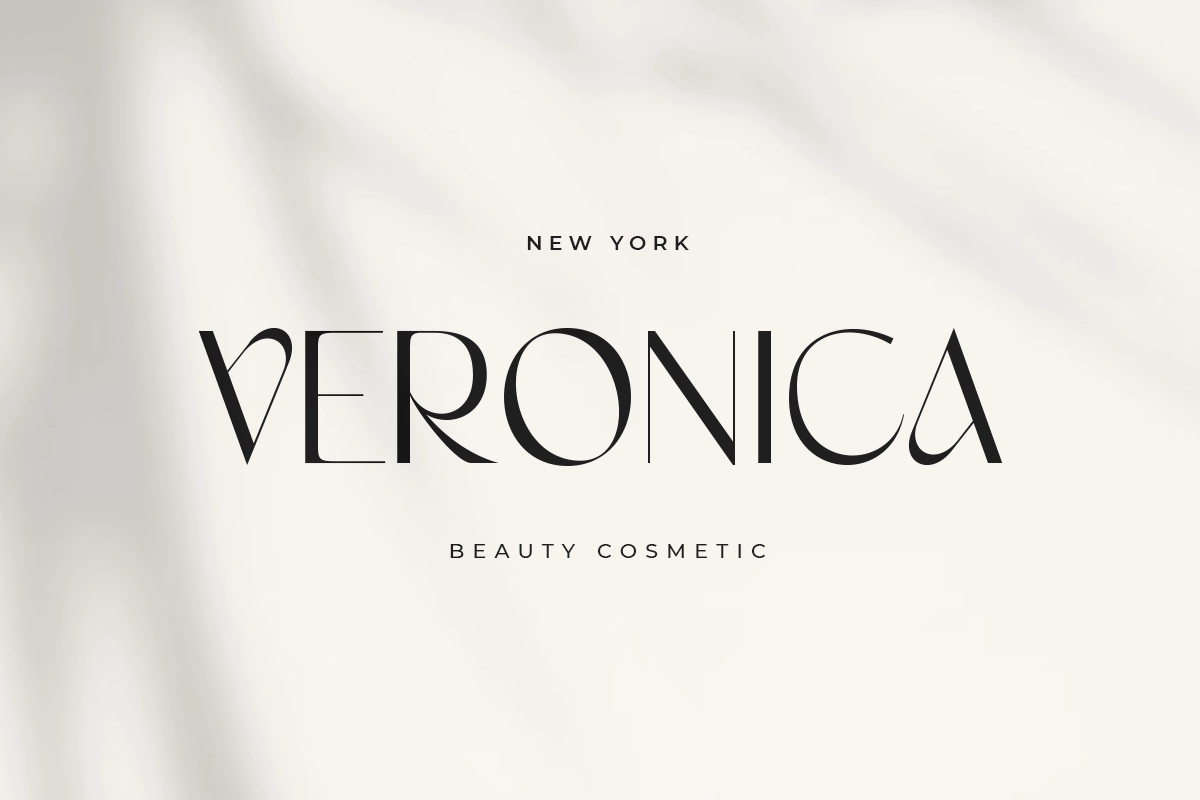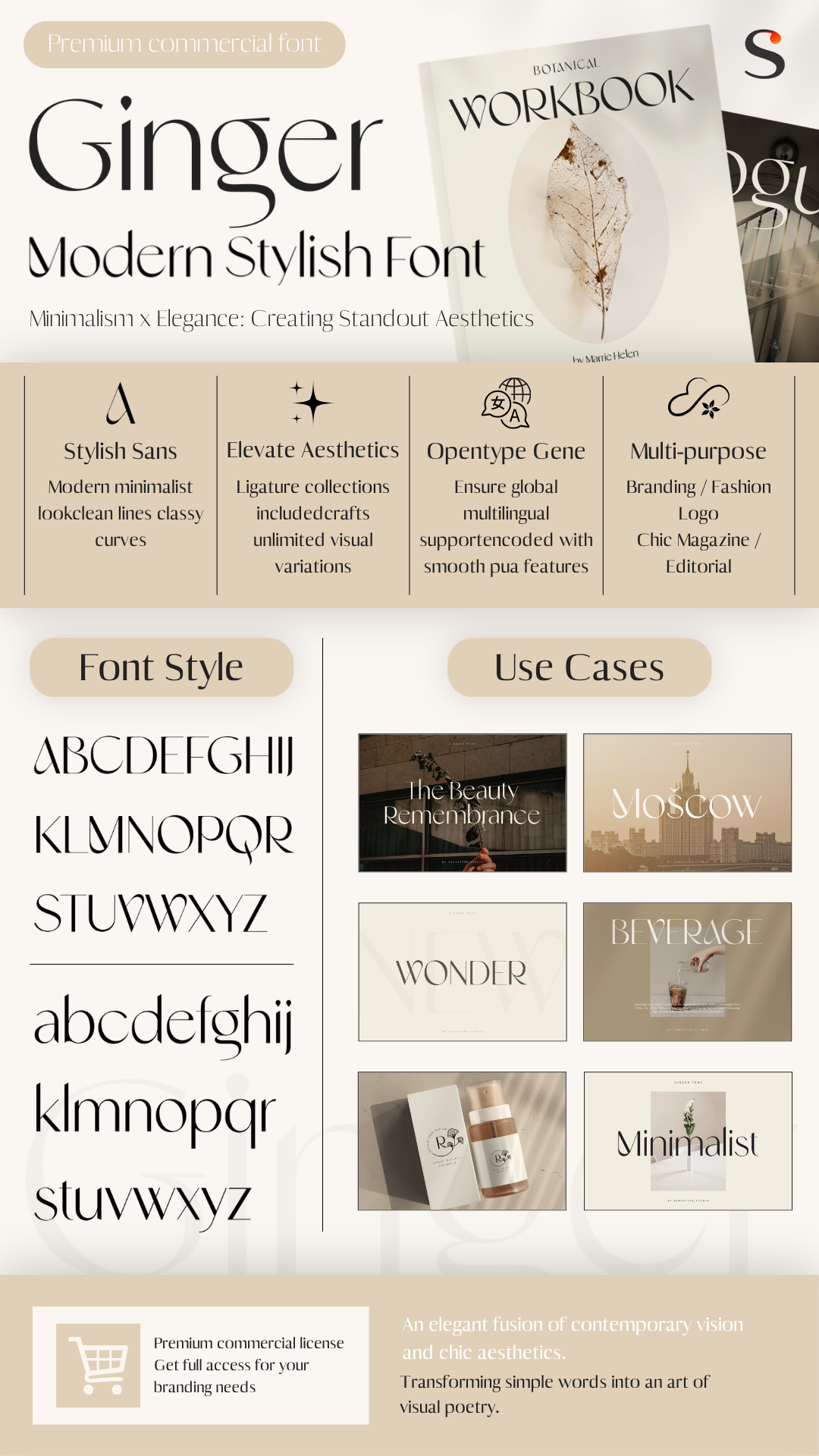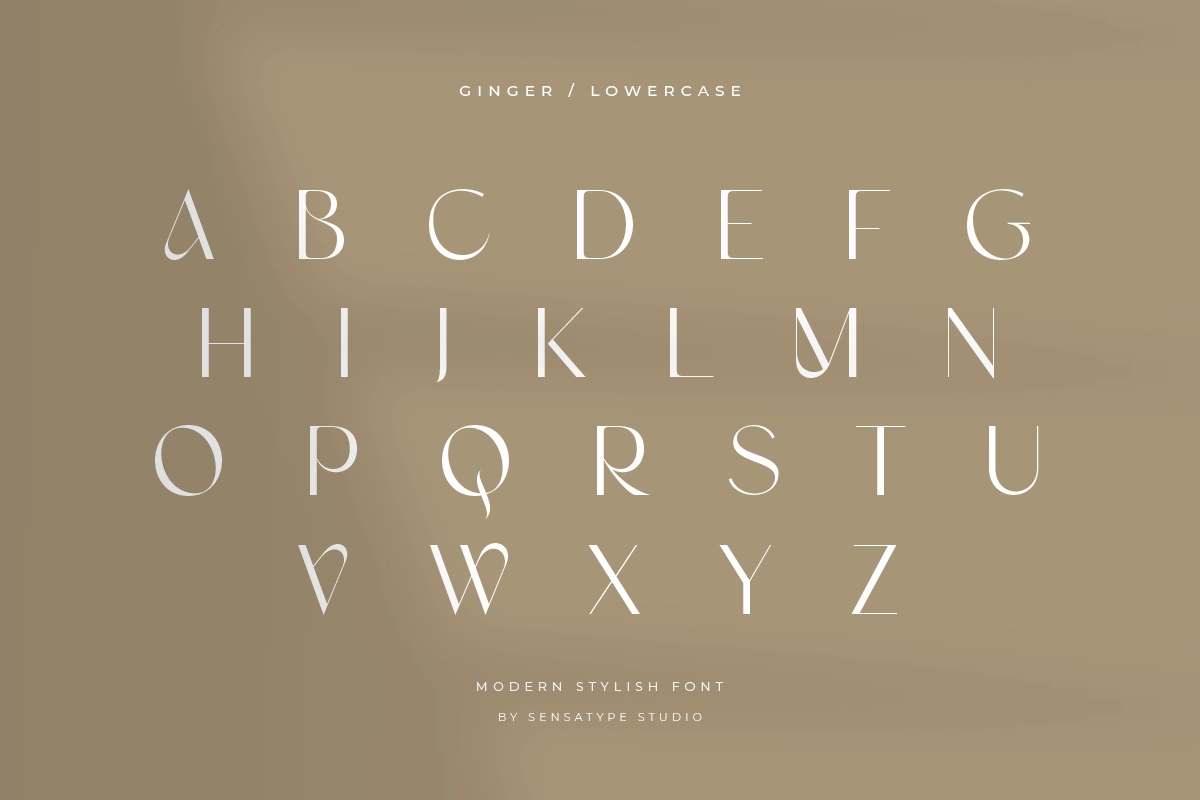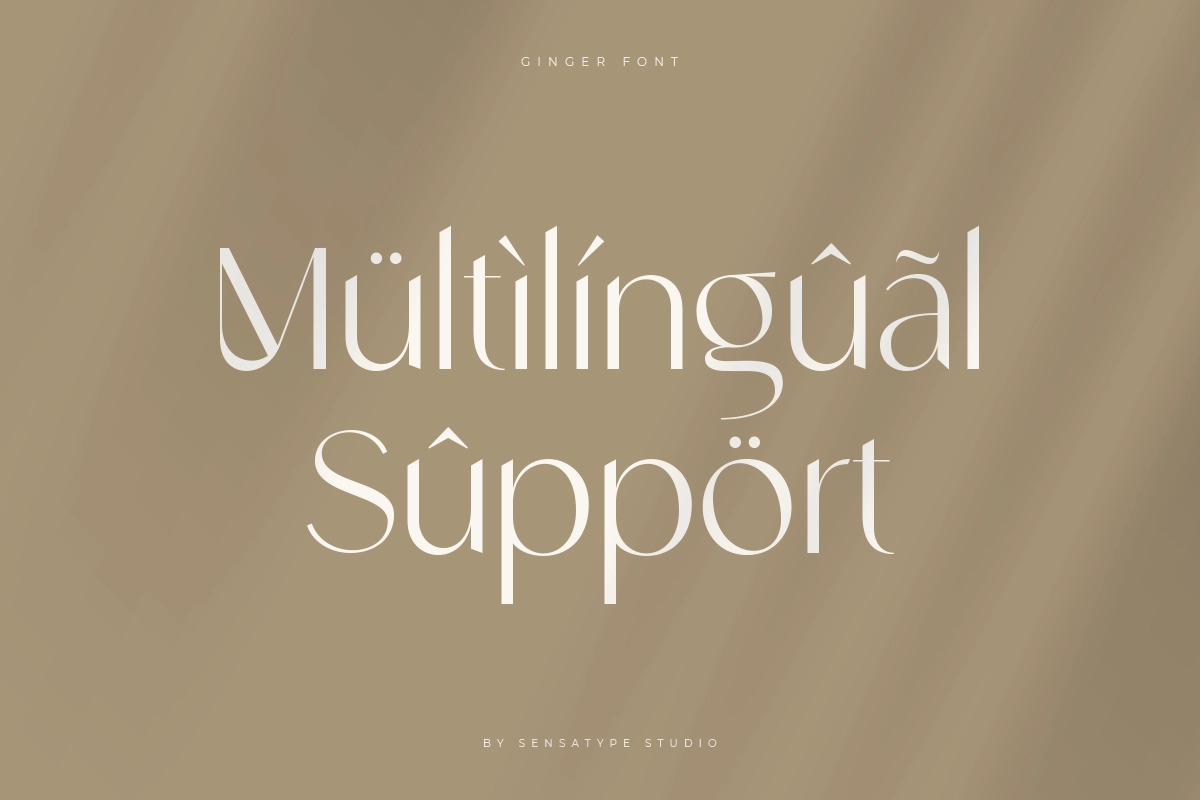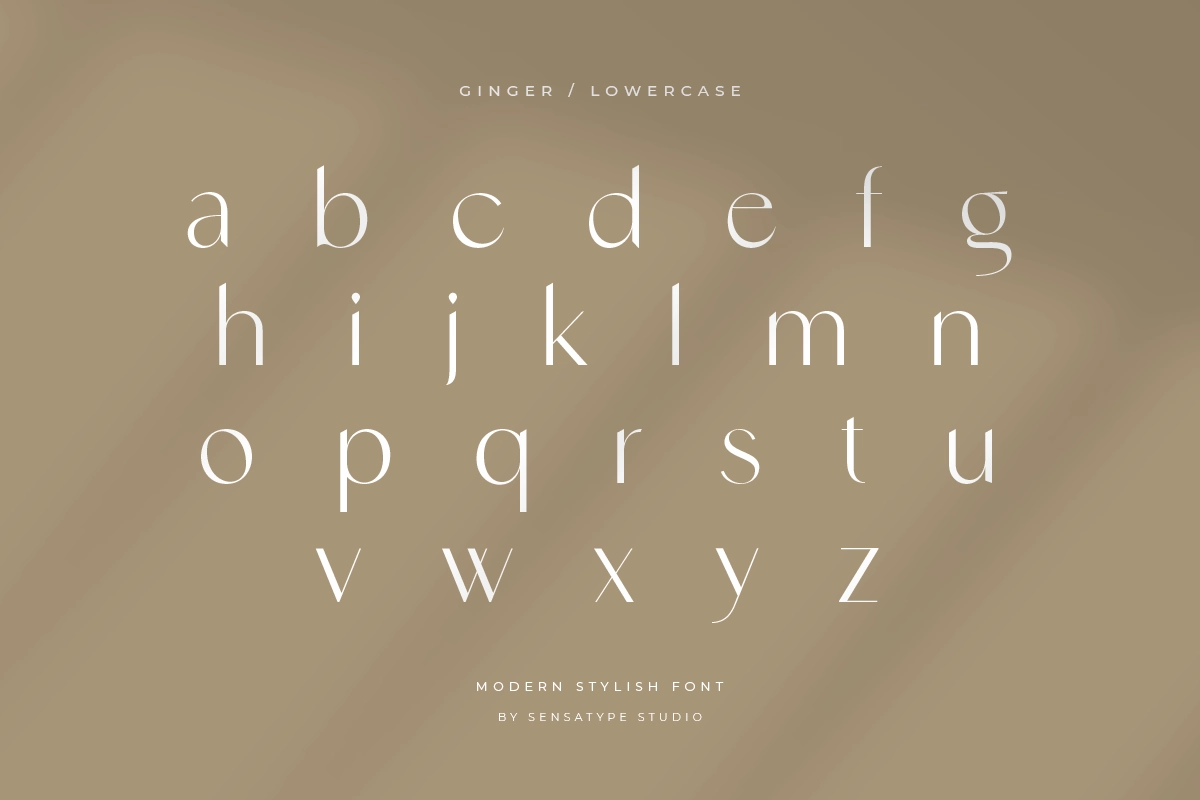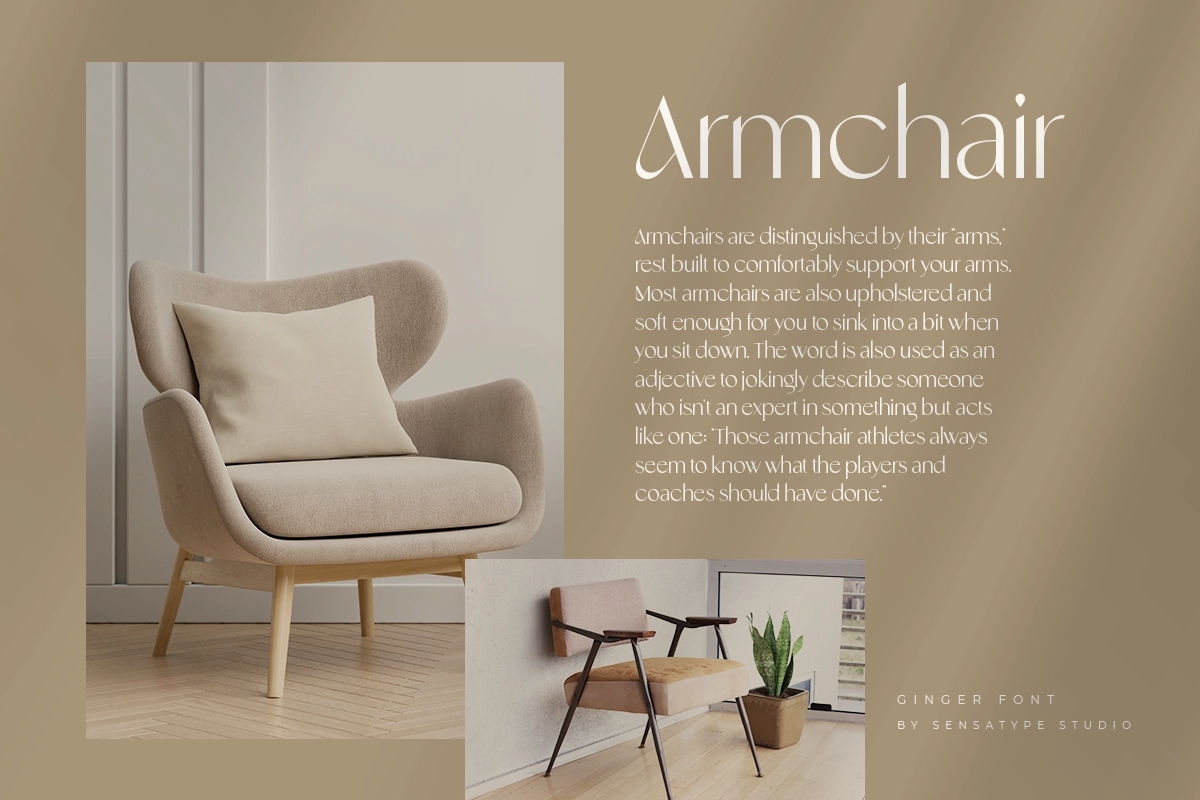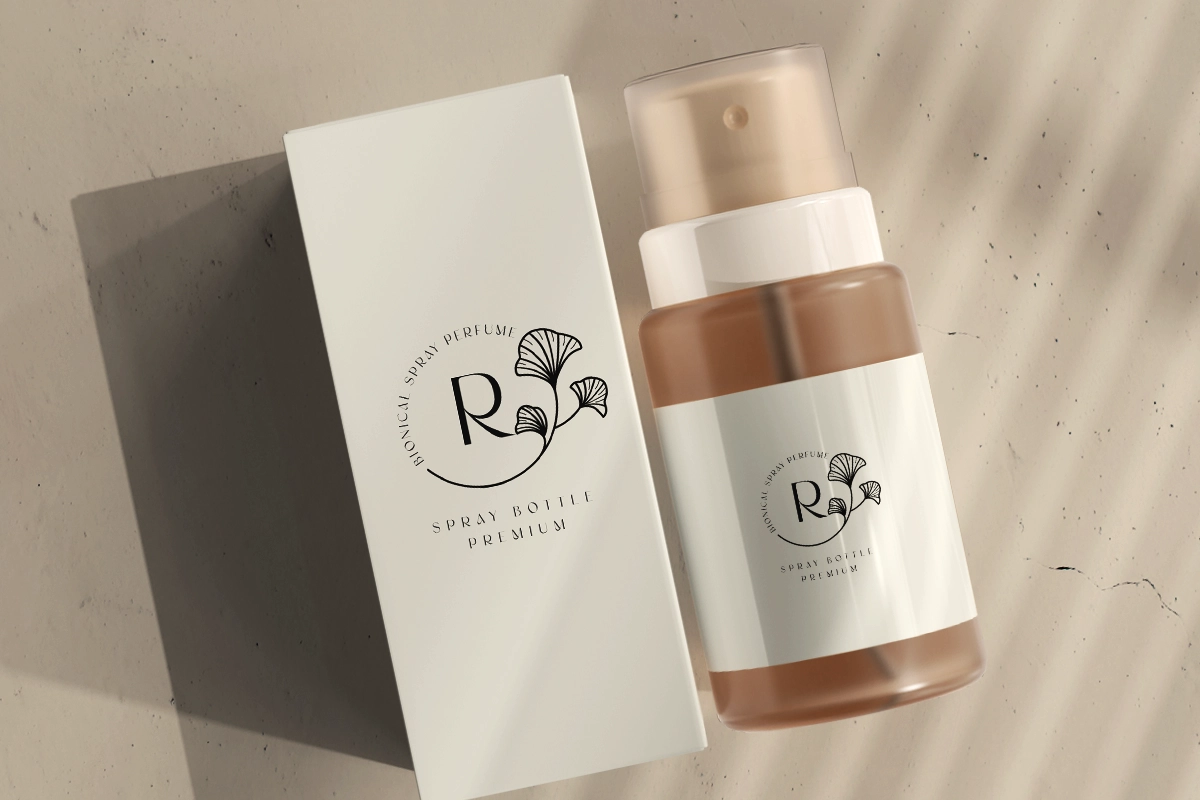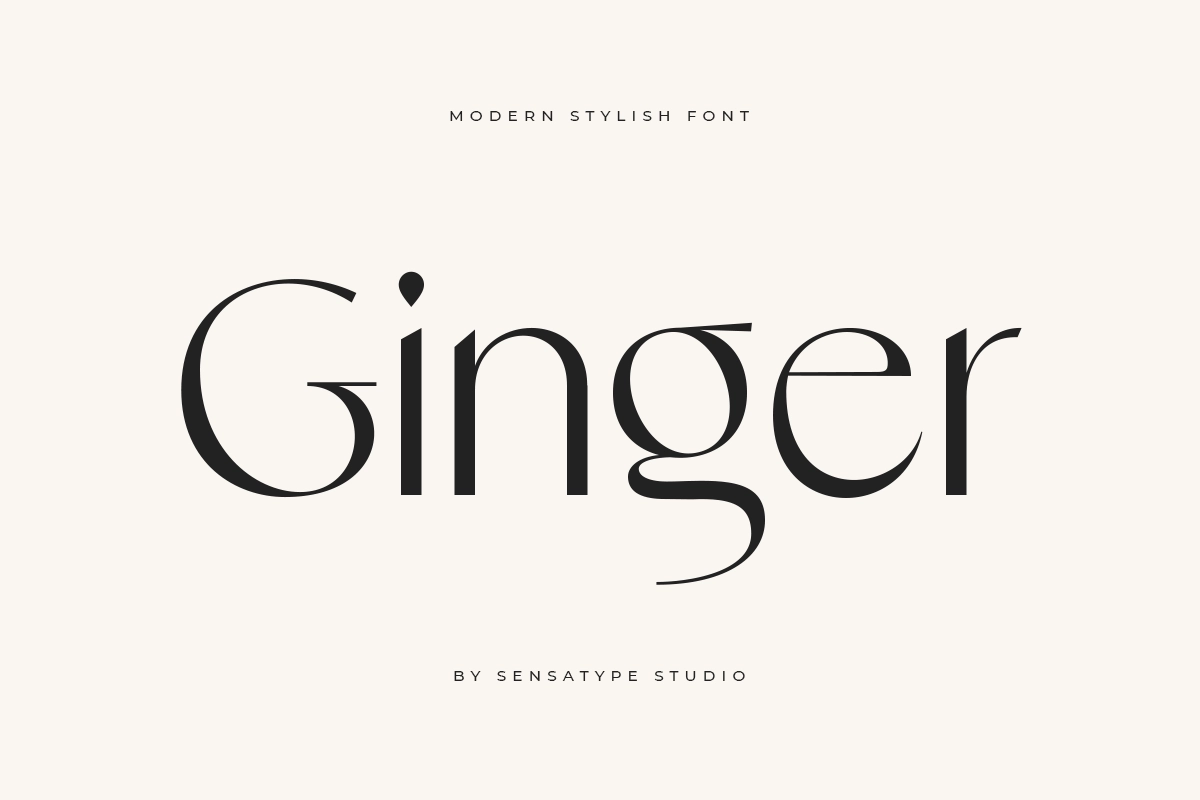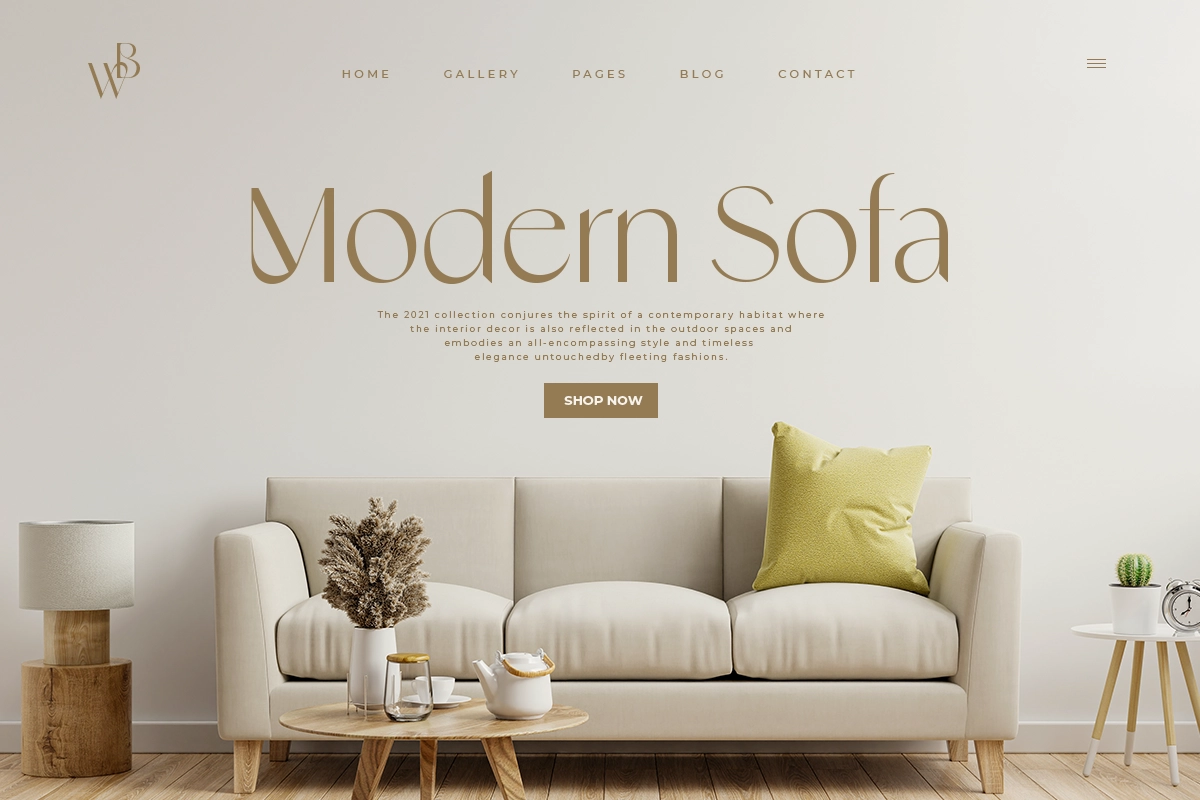
Tired of basic sans fonts? Ginger adds a premium twist
Elevate your visual identity with Ginger. A stylish, fully-featured sans-serif that seamlessly blends clean geometric lines with elegant, unique characters to help your brand look instantly premium.
Tired of basic sans fonts? Ginger adds a premium twist
This week's featured typeface: Ginger, an exquisite creation by Sensatype Studio, is a modern stylish sans-serif font designed to redefine contemporary branding. Crafted specifically for the new generation of creators, it seamlessly blends clean structural lines with a chic, high-end aesthetic. Ginger explores the balance between minimalist form and expressive character, offering a sophisticated tool to elevate logos, editorials, and visual identities into striking, unique statements.
Ginger - Modern Stylish Font
Ginger is a modern stylish font that falls into the Sans Serif category, featuring a clean layout designed to bring a fresh, contemporary vibe to the design world.
Uppercase (Ginger)
Built for flexibility, the font includes complete Uppercase and Lowercase collections, allowing designers to easily switch styles depending on the visual hierarchy they want to achieve.
Lowercase (Ginger)
One of Ginger’s main strengths is its unique Ligature Collections and OpenType features, enabling you to connect letters smoothly and create unlimited variations for creative designs.
London Bailegh (Ginger)
The font is fully PUA Encoded and equipped with Number, Punctuation, and Multilingual Support, ensuring that it is highly accessible and ready for international design needs.
Multilingual Support (Ginger)
Ginger is specifically engineered to help logos and brands standout, making it highly recommended for high-end industries such as fashion, beauty, luxury magazines, and classy layouts.
Mock up (ginger)
In summary, Ginger is a versatile, high-end typeface that balances timeless classy elements with a modern twist. By offering rich ligatures and a clean geometric foundation, it serves as the perfect asset for designers looking to create a premium, unique, and feminine or elegant brand identity.
Veronica (Ginger)
To spark your creativity, here are some stunning typography showcases and design inspirations featuring Ginger. Let’s explore how this typeface transforms blank canvases into high-end branding masterpieces:
Armchair (Ginger)
Modern Sofa (Ginger)